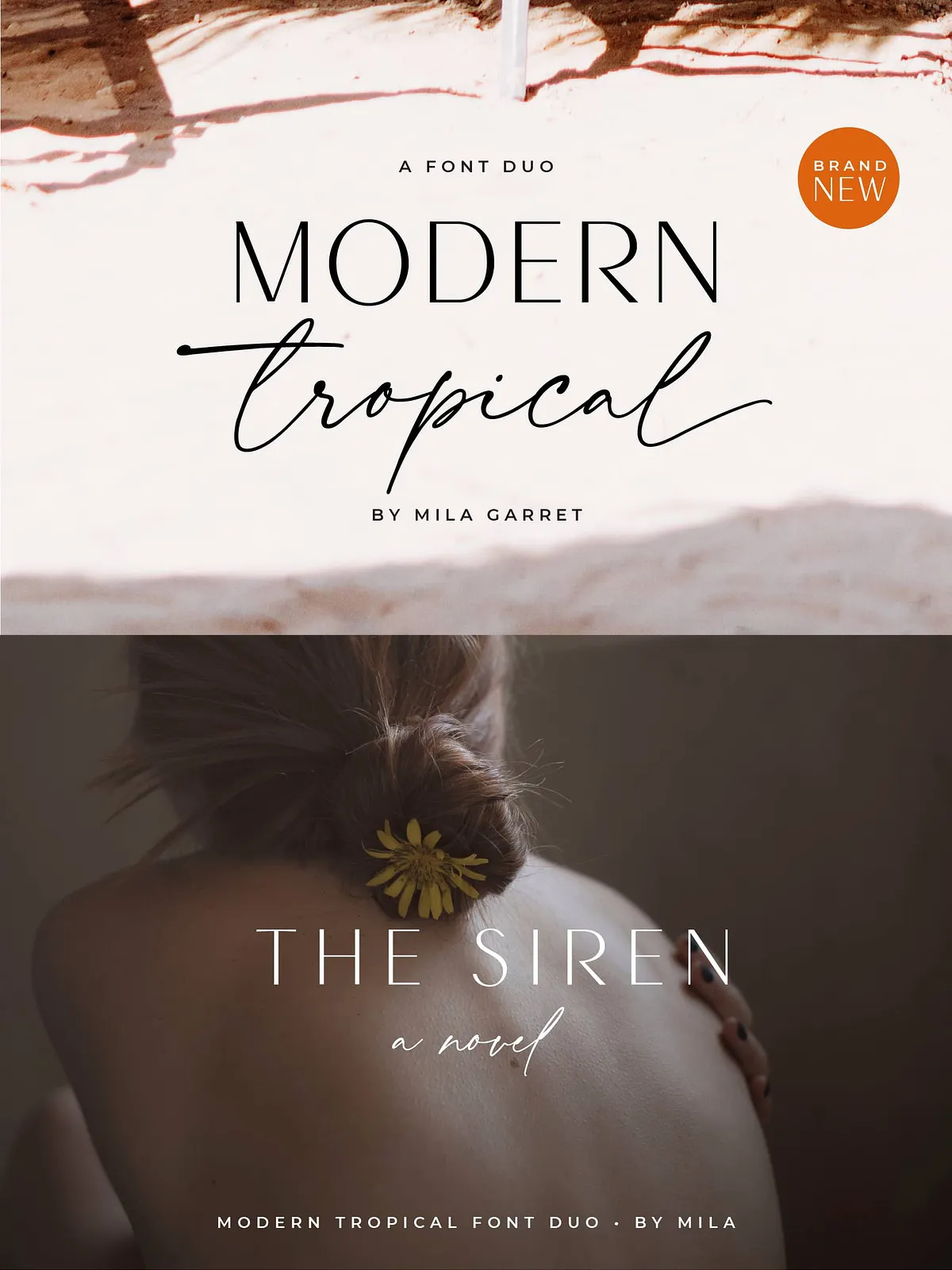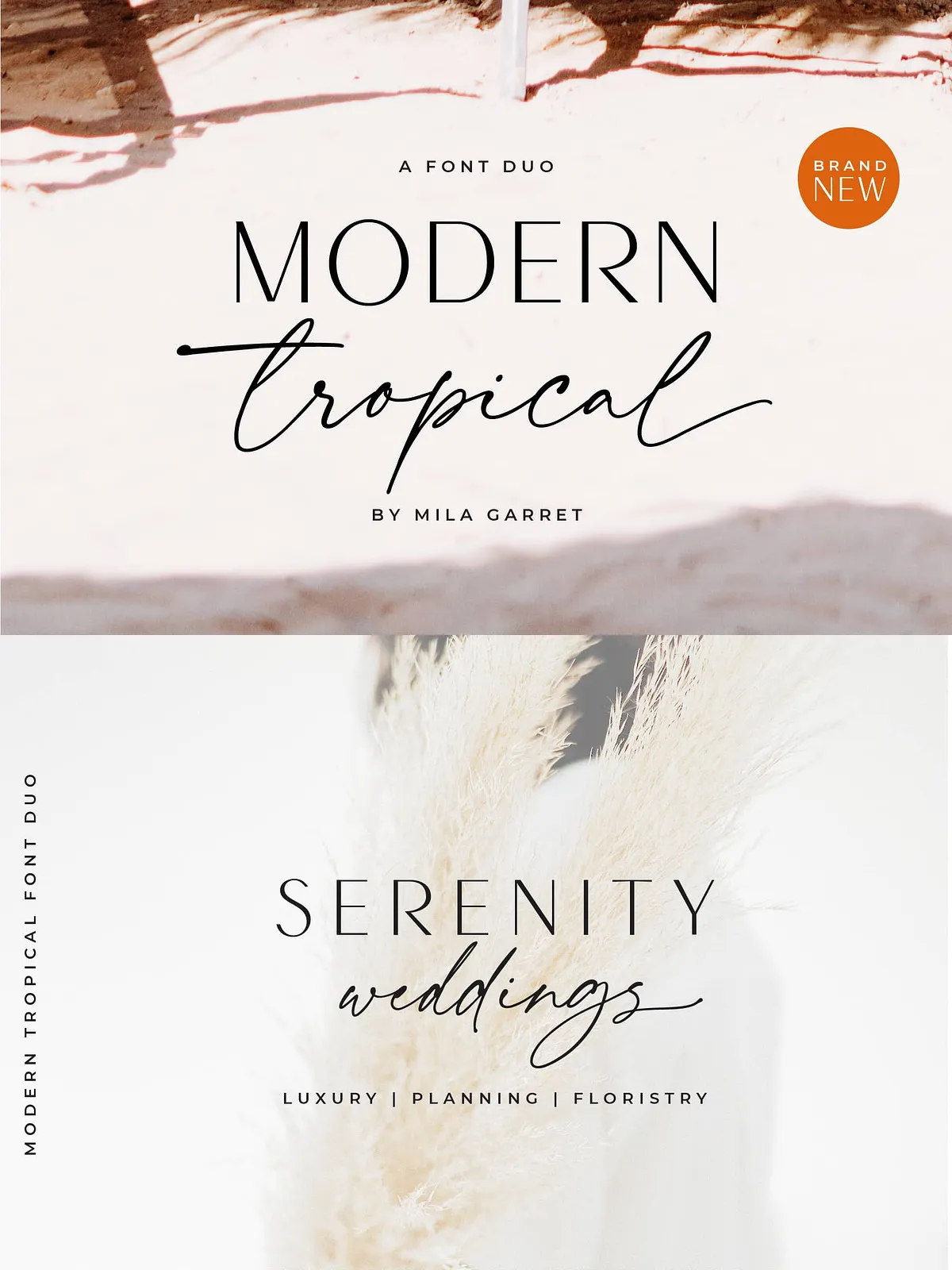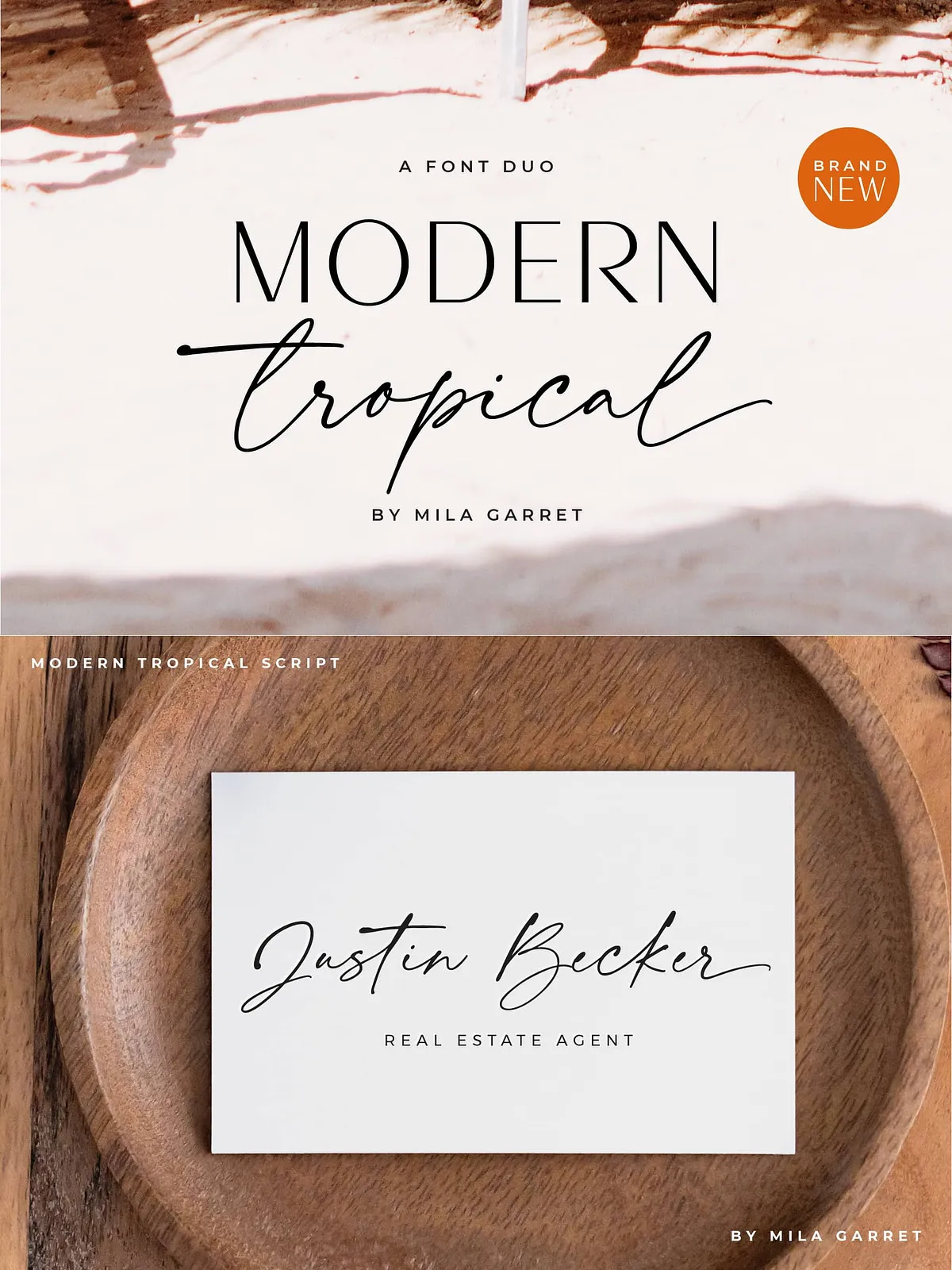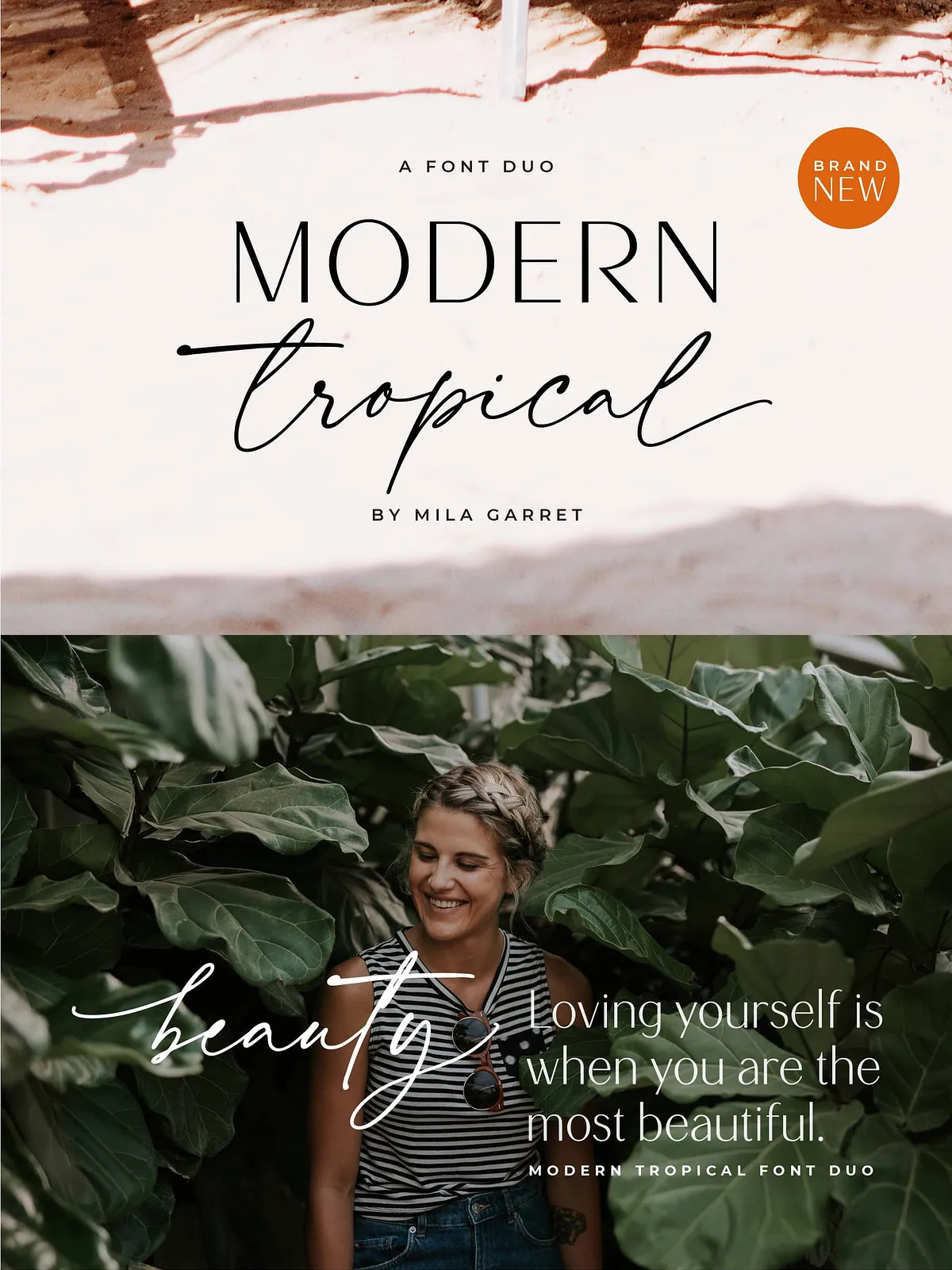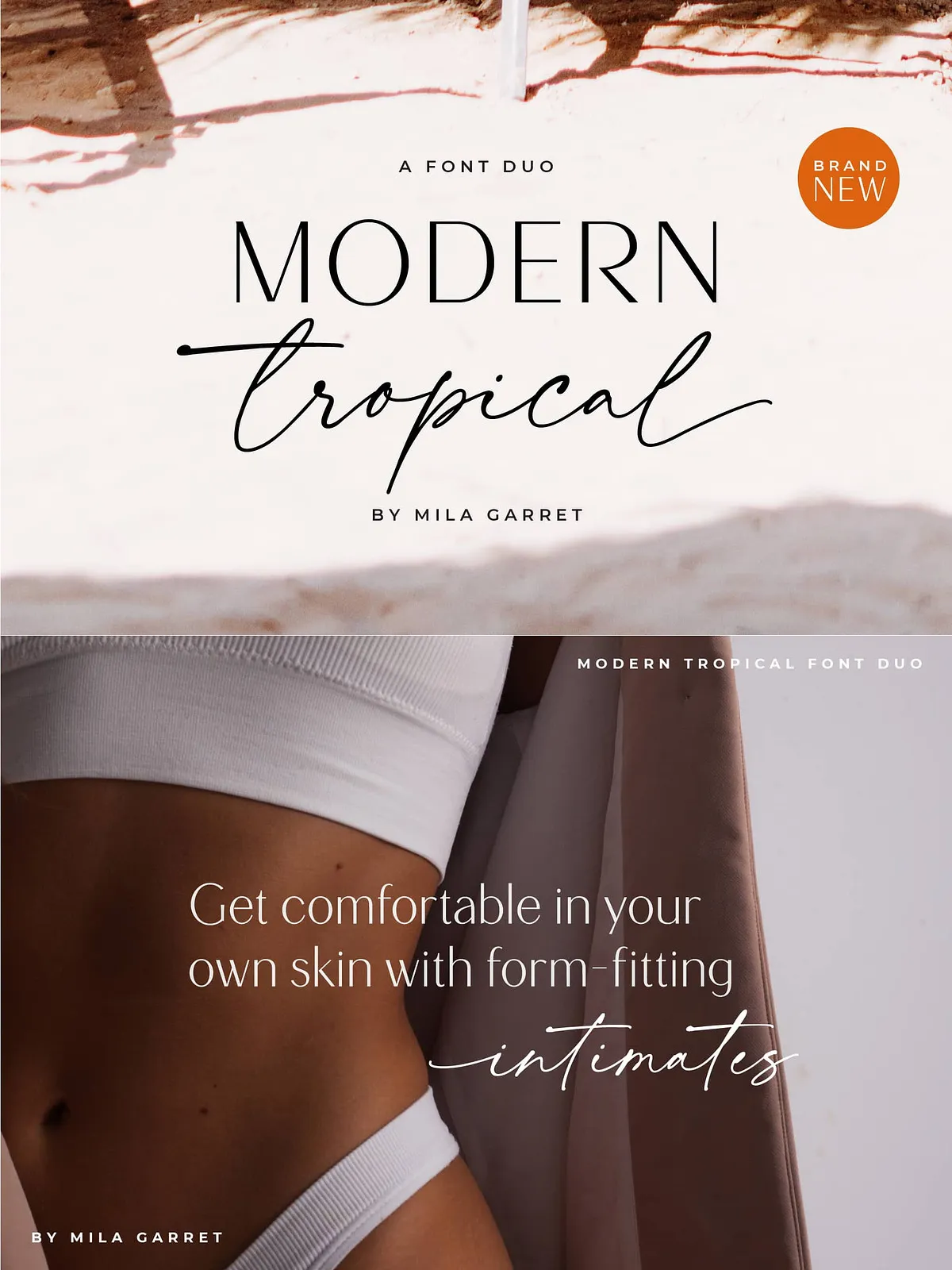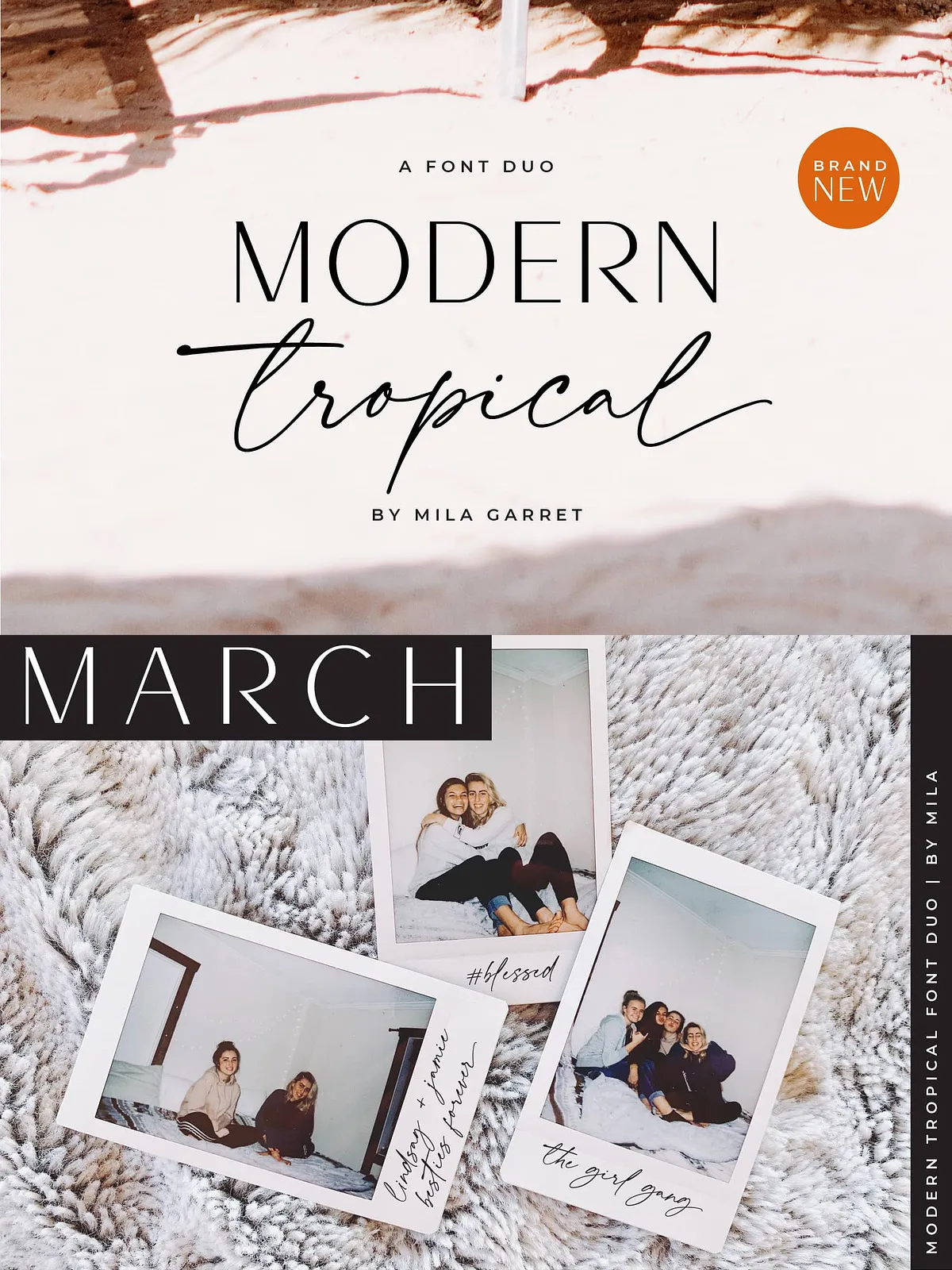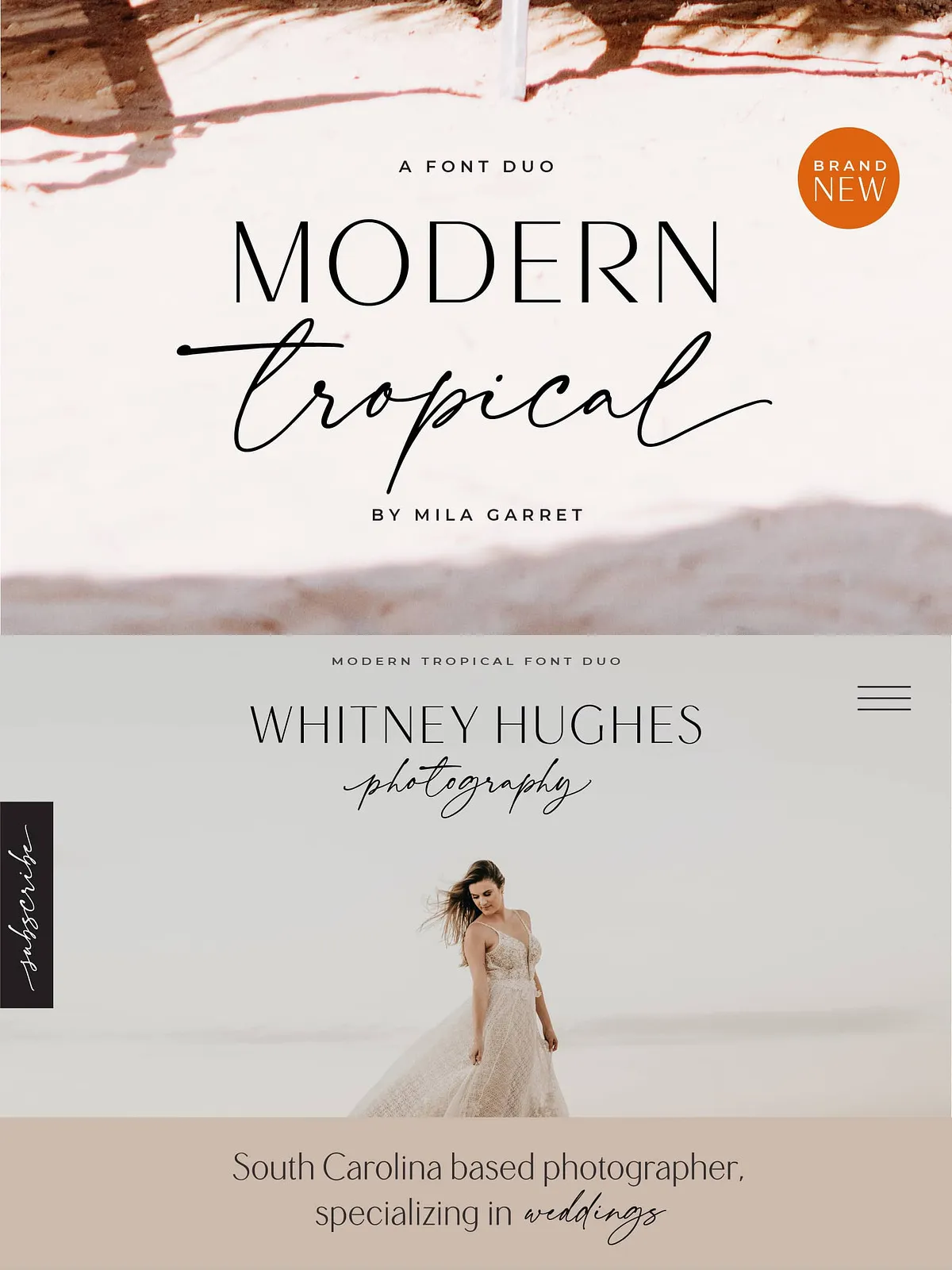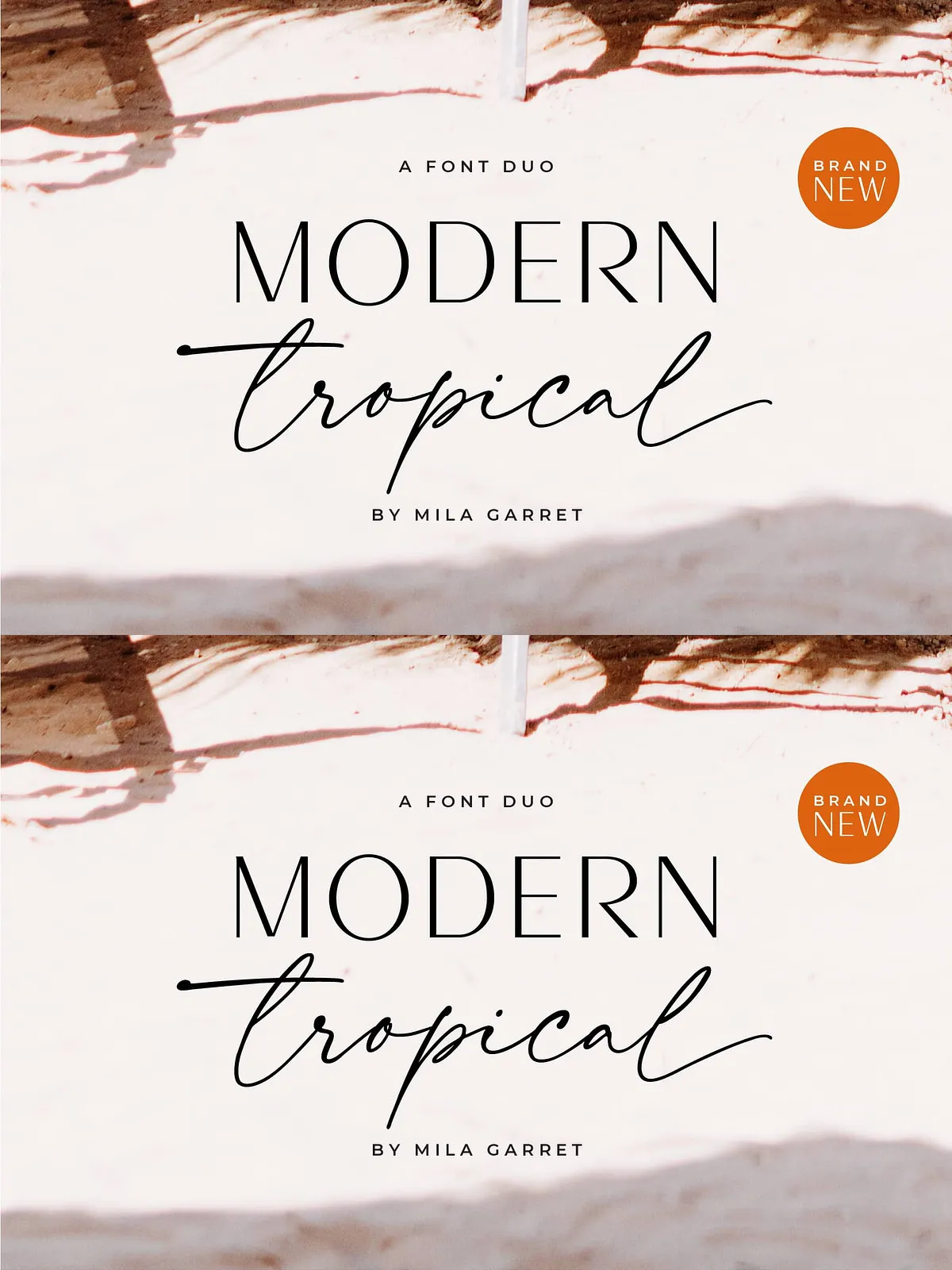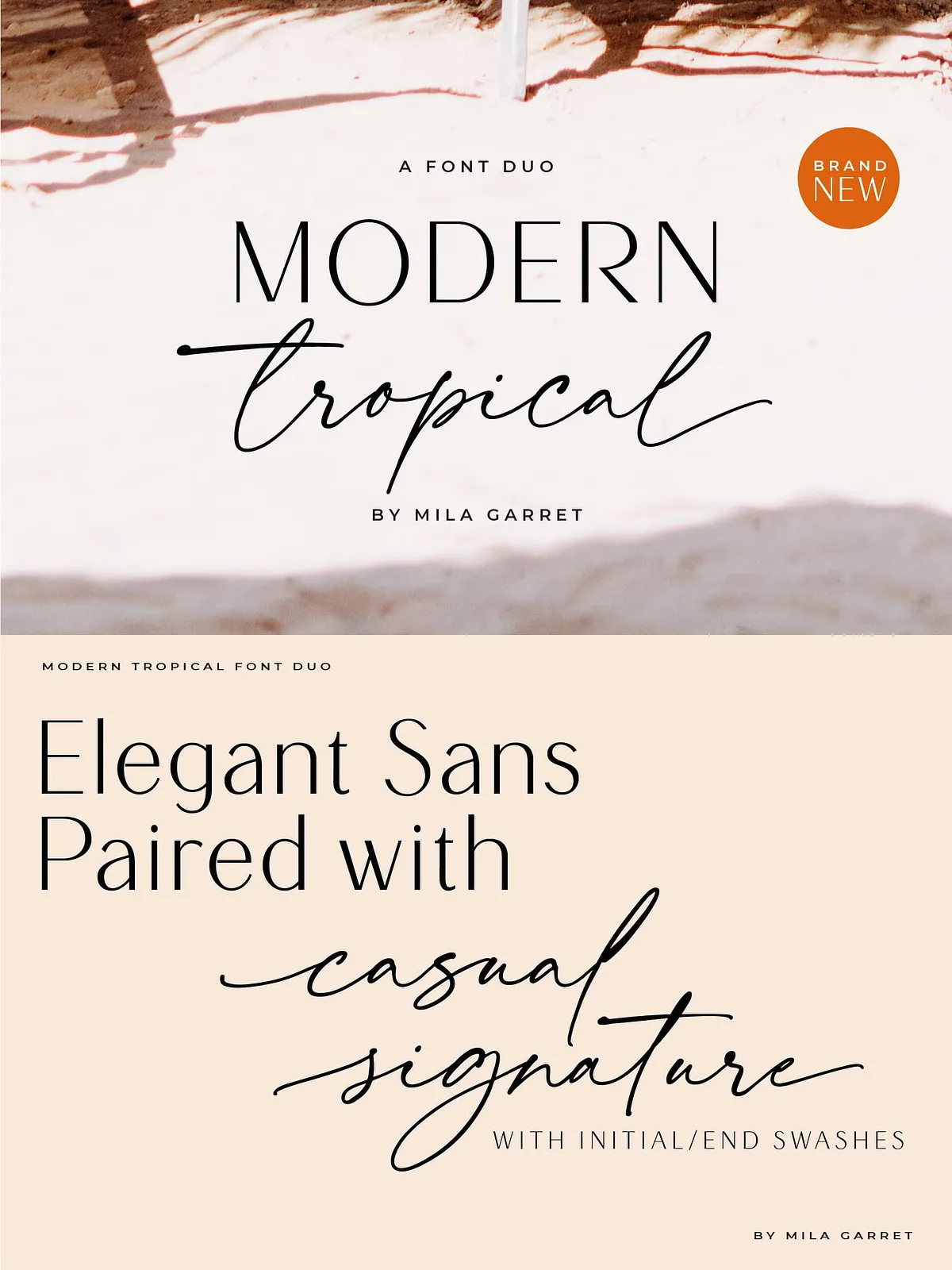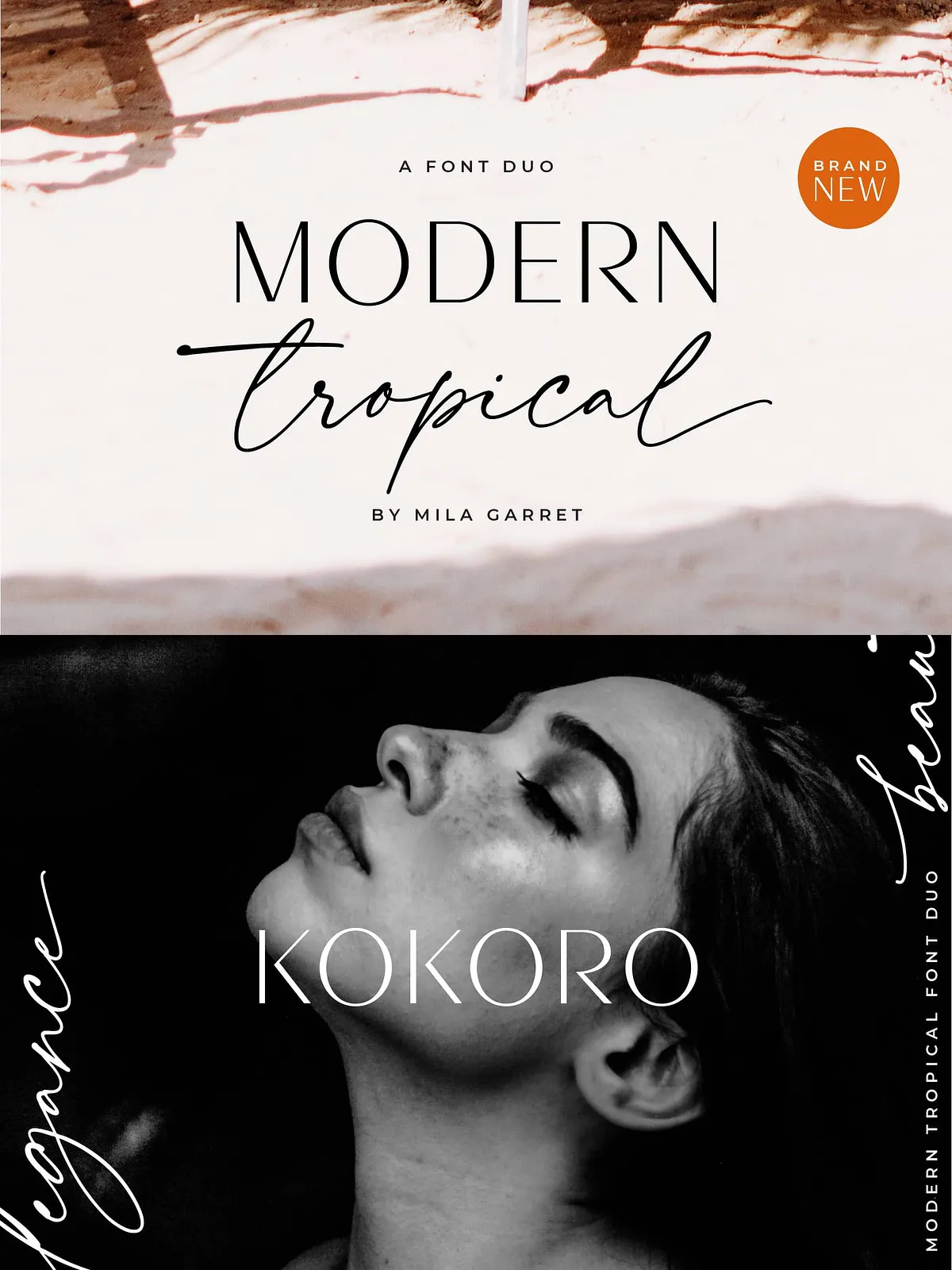
Modern Tropical Font Duo is a thoughtfully crafted typeface combination that brings together the clean simplicity of a modern sans-serif with the sophisticated charm of an inky, handwritten script. This dynamic duo offers designers a seamless pairing that effortlessly elevates a wide range of creative projects, from sleek websites and distinctive logos to stylish branding identities and heartfelt wedding stationery.
Effortless Elegance and Versatility
Designed with casual elegance in mind, Modern Tropical Font Duo adds a luxurious yet approachable touch to your typography. The minimalist sans-serif provides clarity and modernity, while the handwritten script injects personality and warmth. Together, they create a harmonious balance that enhances the visual appeal of your work without overwhelming it.
Whether you are crafting social media quotes that stand out, designing a brand identity that resonates with sophistication, or preparing wedding invitations that feel personal and refined, this font duo offers the versatility and style to meet your needs. By choosing Modern Tropical Font Duo, you eliminate the guesswork of font pairing, as these two complementary styles are designed to work perfectly together.
Comprehensive Character Set and Features
Modern Tropical Font Duo comes equipped with a full set of standard alphabets and punctuation marks, ensuring your text is complete and professional. The script font includes 28 unique ligatures, which add fluidity and natural connections between letters, enhancing the handwritten feel and making your typography more dynamic and engaging.
Extensive Multilingual Support
Understanding the importance of global communication, Modern Tropical Font Duo supports a wide range of multilingual characters. This includes accented letters and special symbols for Western and Central European languages, such as Á, Â, Ä, À, Å, Ã, Æ, Ç, É, Ê, Ë, È, Í, Î, Ï, Ì, Ñ, Ó, Ô, Ö, Ò, Ø, Õ, Œ, Ú, Û, Ü, Ù, Ý, Ÿ, and their lowercase counterparts, as well as special characters like ß, Š, š, ž, €, £, ¥, ª, and º. This extensive language coverage ensures your designs can communicate effectively across diverse audiences without sacrificing style or readability.
Modern Tropical Font Duo is ideal for designers and creatives who want a reliable, stylish font pairing that works across multiple platforms and project types. Its combination of minimalist sans-serif and elegant script offers:
- Expressive ligatures: Enhance the natural flow and beauty of the handwritten script.